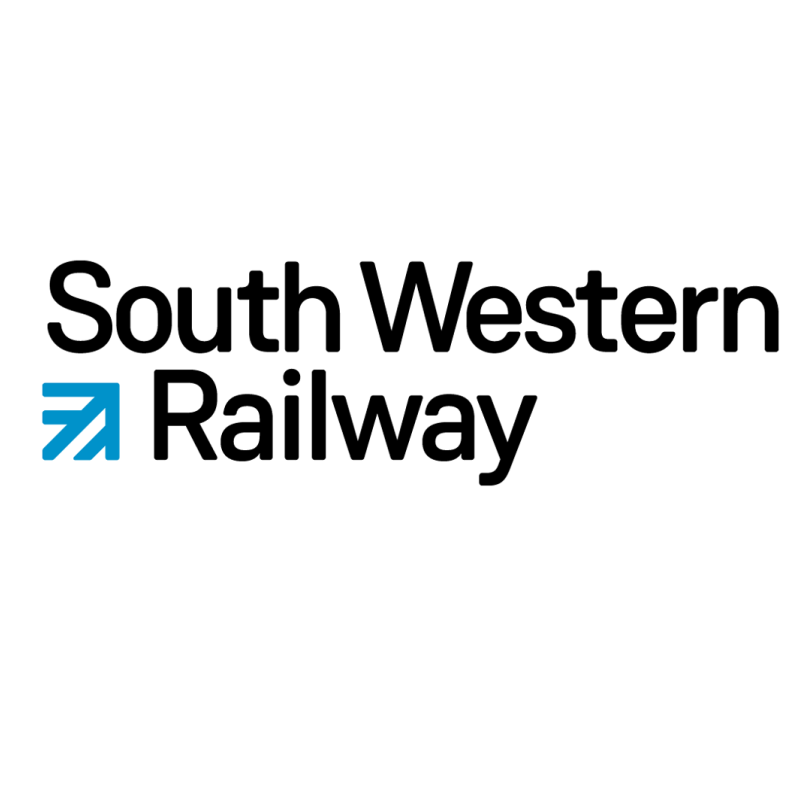
South Western Railway Font
Fonts in UseSouth Western Railway is a train operating company in the United Kingdom, providing services in the South West region including suburban, regional, and long-distance routes.
The South Western Railway logo features the Weissenhof Grotesk Medium font, a geometric sans serif designed by Stefanie Schwarz and Dirk Wachowiak. You can find more information about the font here.